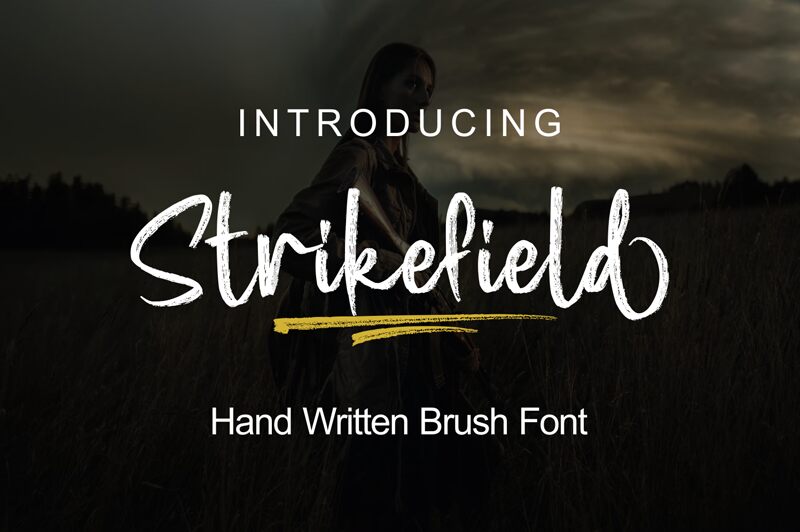
Strikefield
Strikefield font by zamjump is a free brush font with an expressive flair, casual aesthetic, and textured finish. A handwritten appearance combines modern appeal with unique letter shapes that showcase the power of digital and creative designs.
Designers can download and use it for all sorts of design projects including logos, ads, posters, branding presentations, social media posts, magazines covers or pages. Packaging projects can carry the fun nature and energetic power of each letter for snacks packaging or stickers to add on gift packages among others.